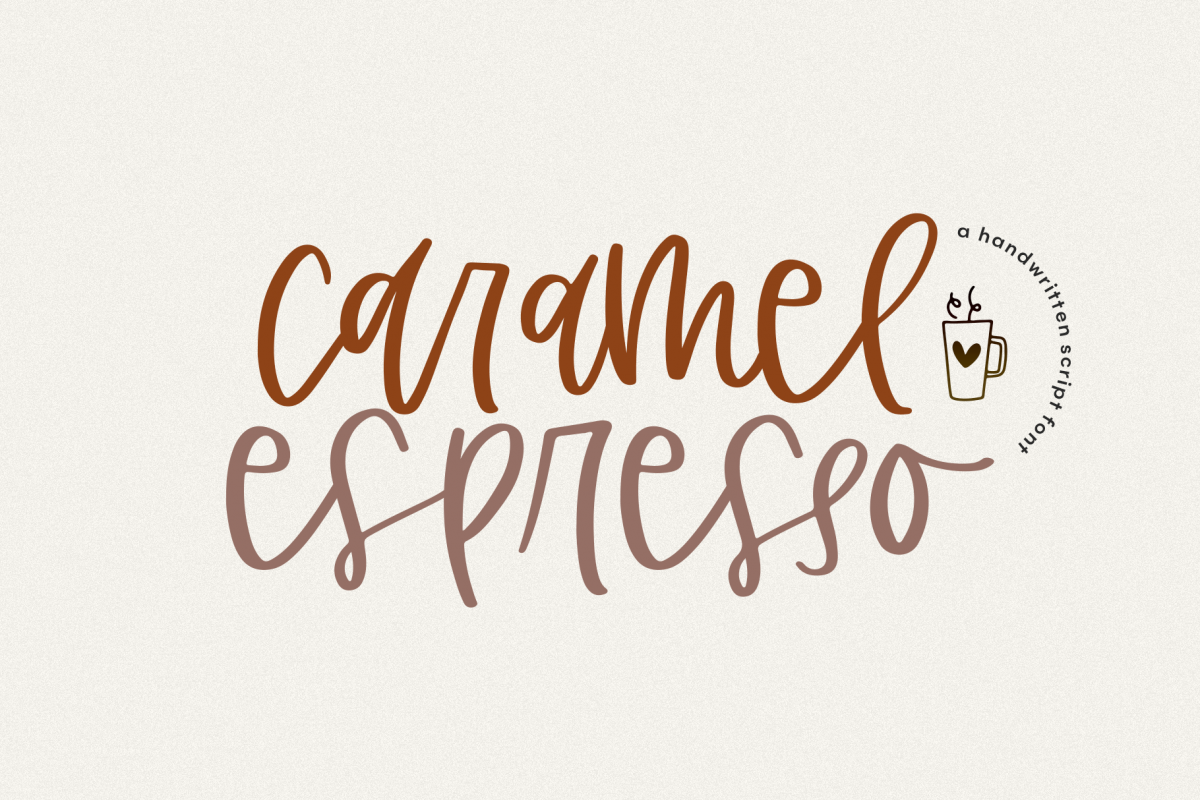
Caramel Espresso - A Quirky Handwritten Font
Caramel Espresso is handwritten font with a fun, quirky look!
Caramel Espresso is perfect for modern projects, headings, blogs, logos, brandings, invitations and more!